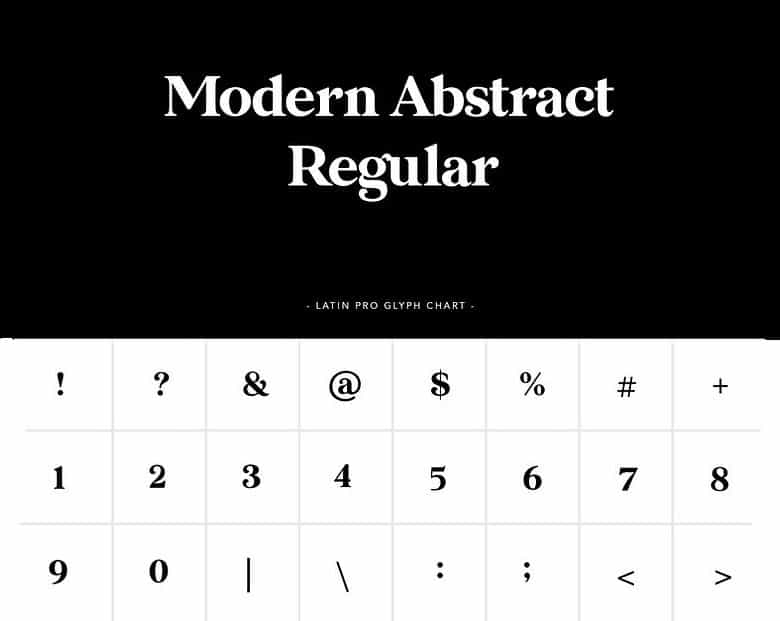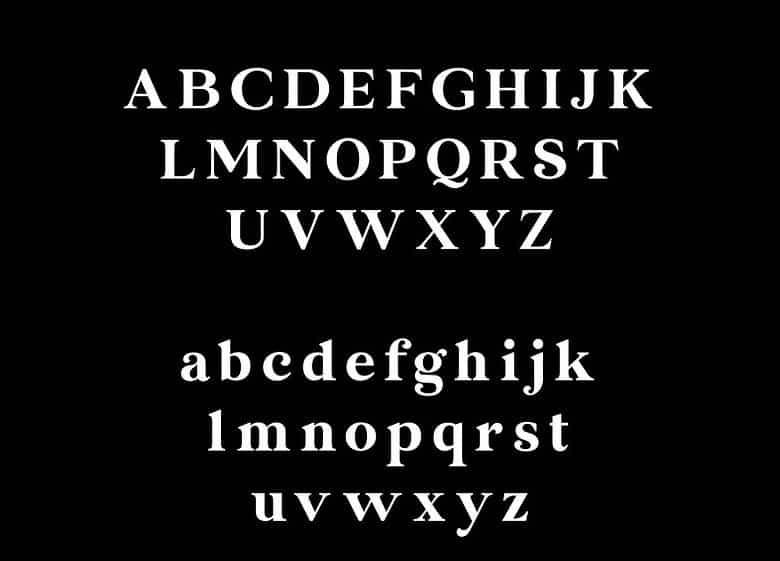
Modern Abstract is a very different type of font, and it is a serif one that looks even somewhat old school. Give Modern Abstract a shot for branding, headlines, films, magazines, websites, packages, invitations, weddings, layouts, web designing, corporate identities and marketing.